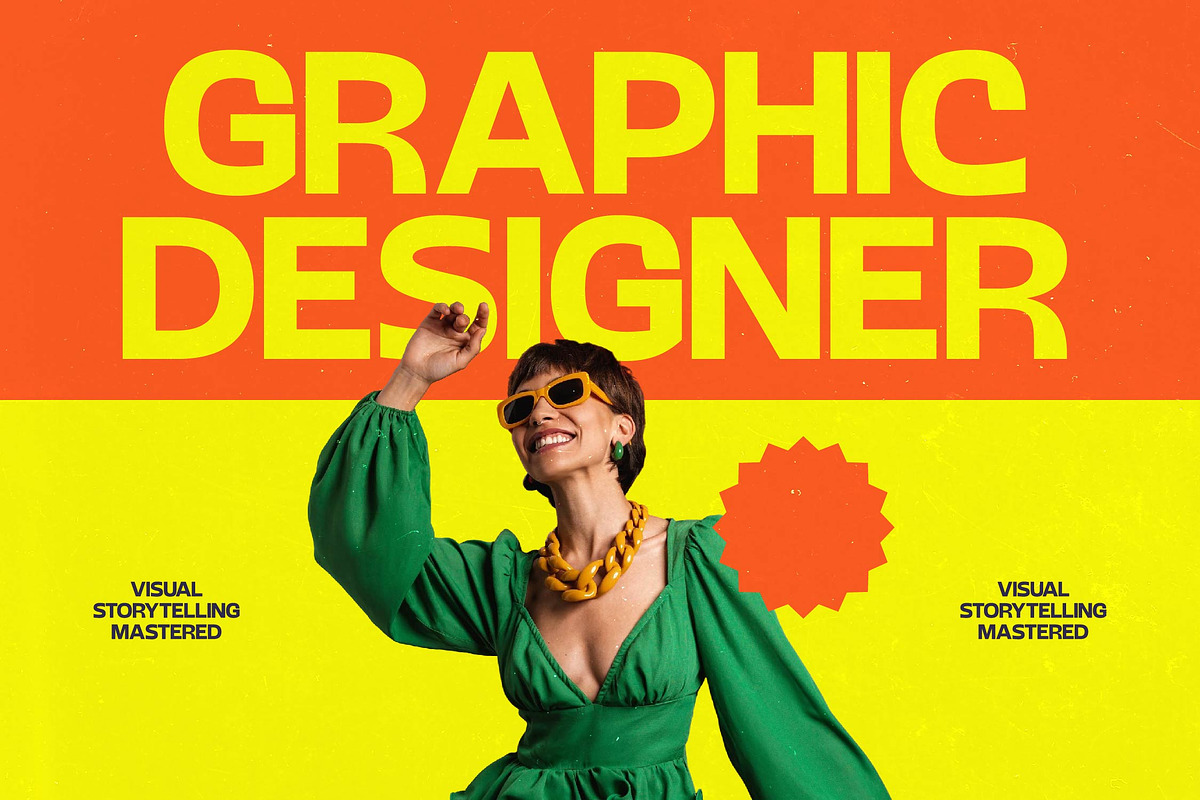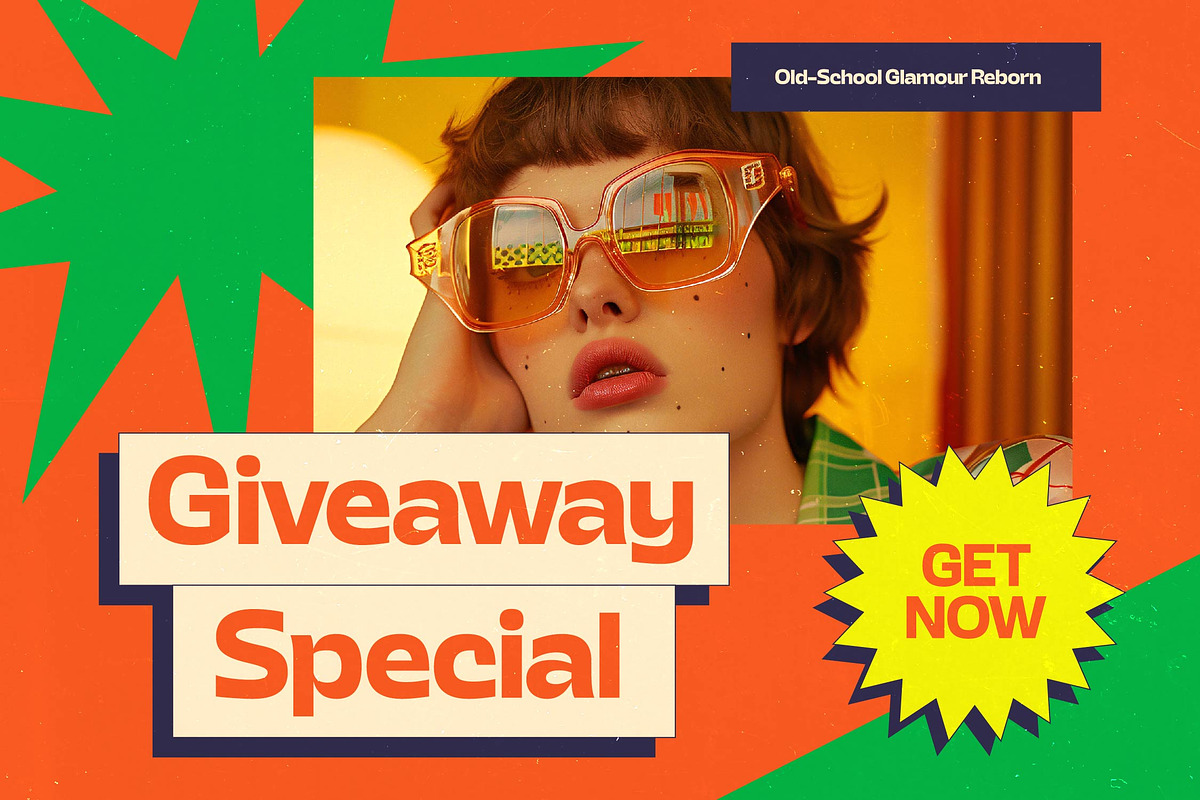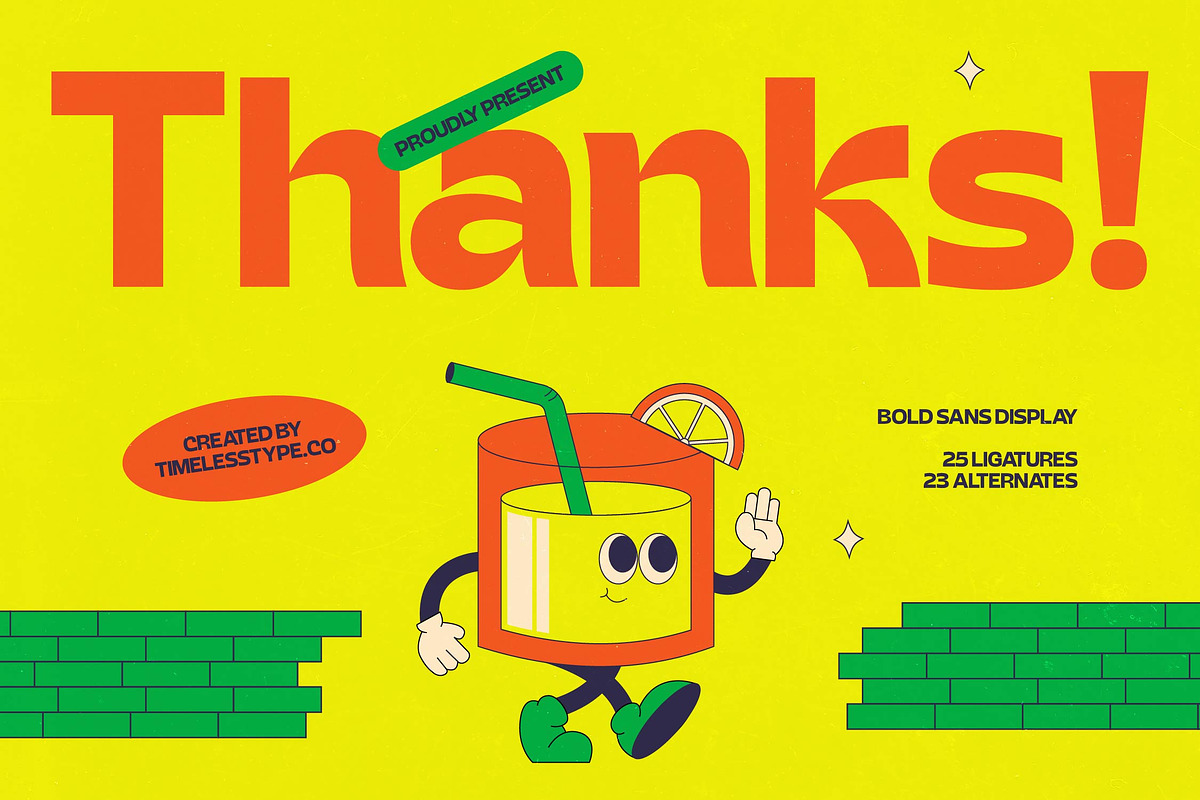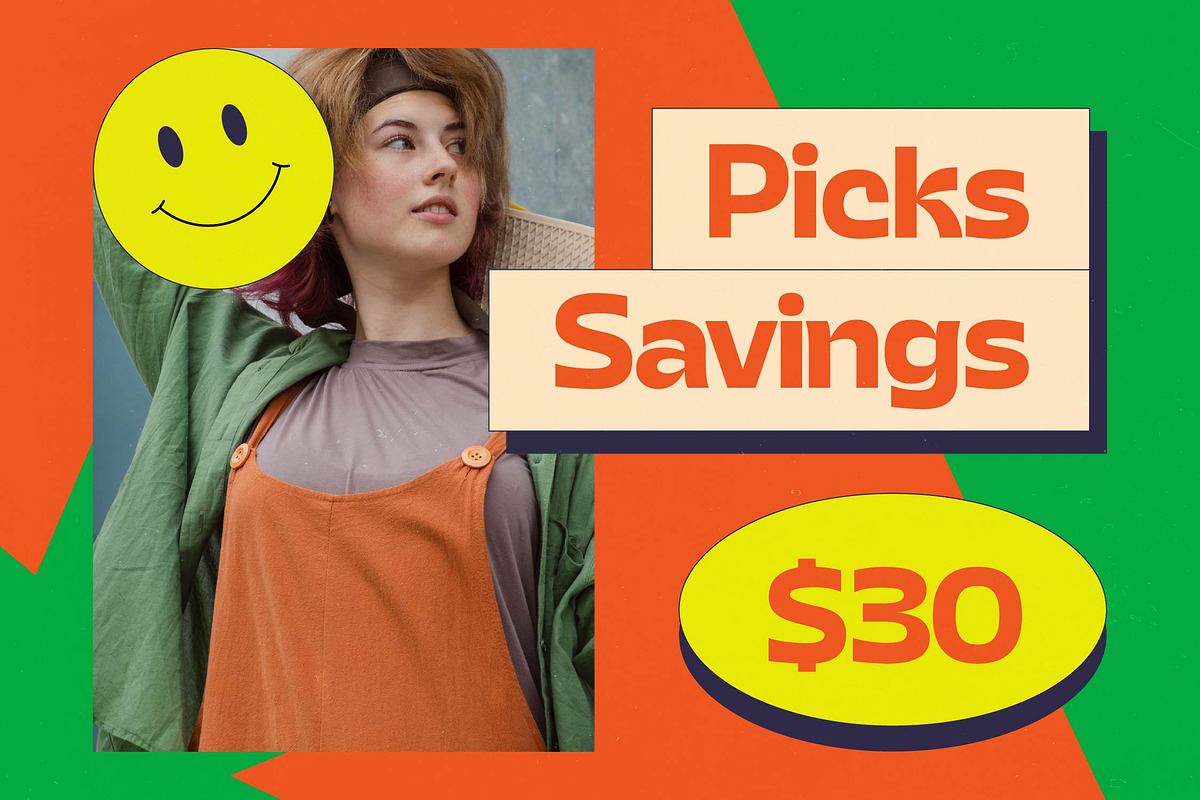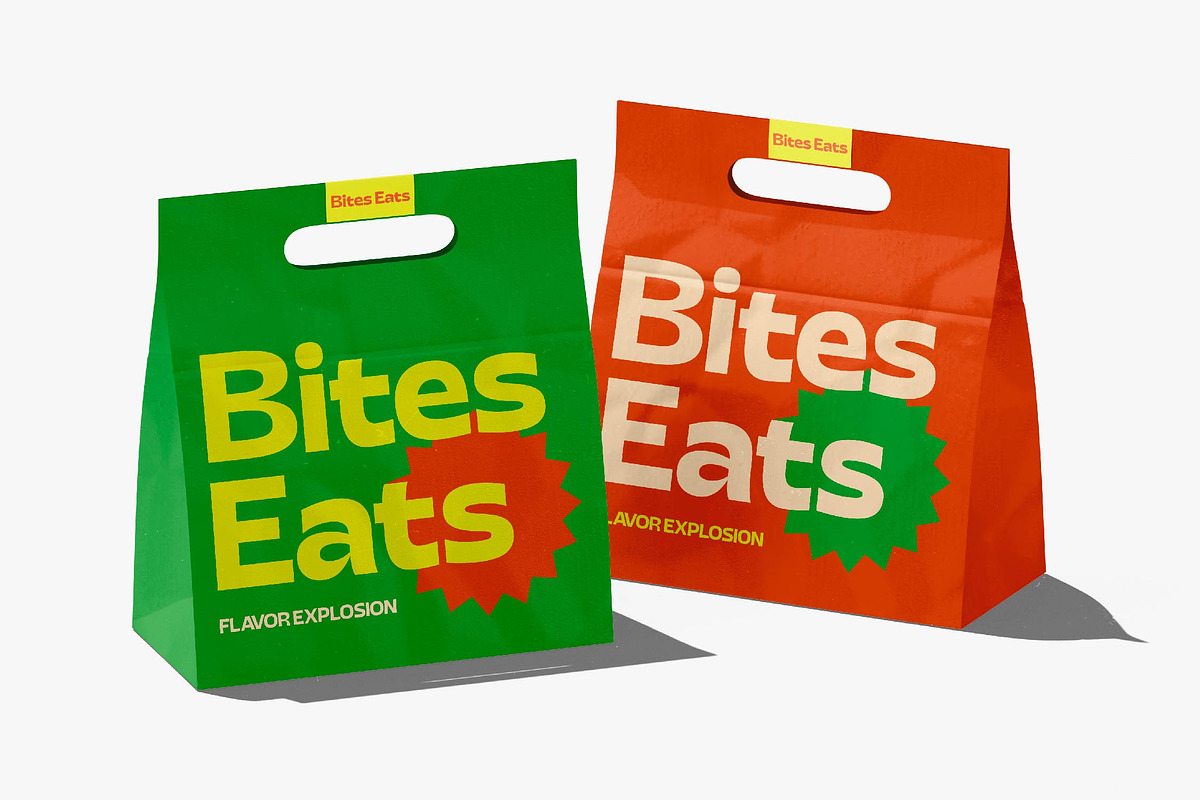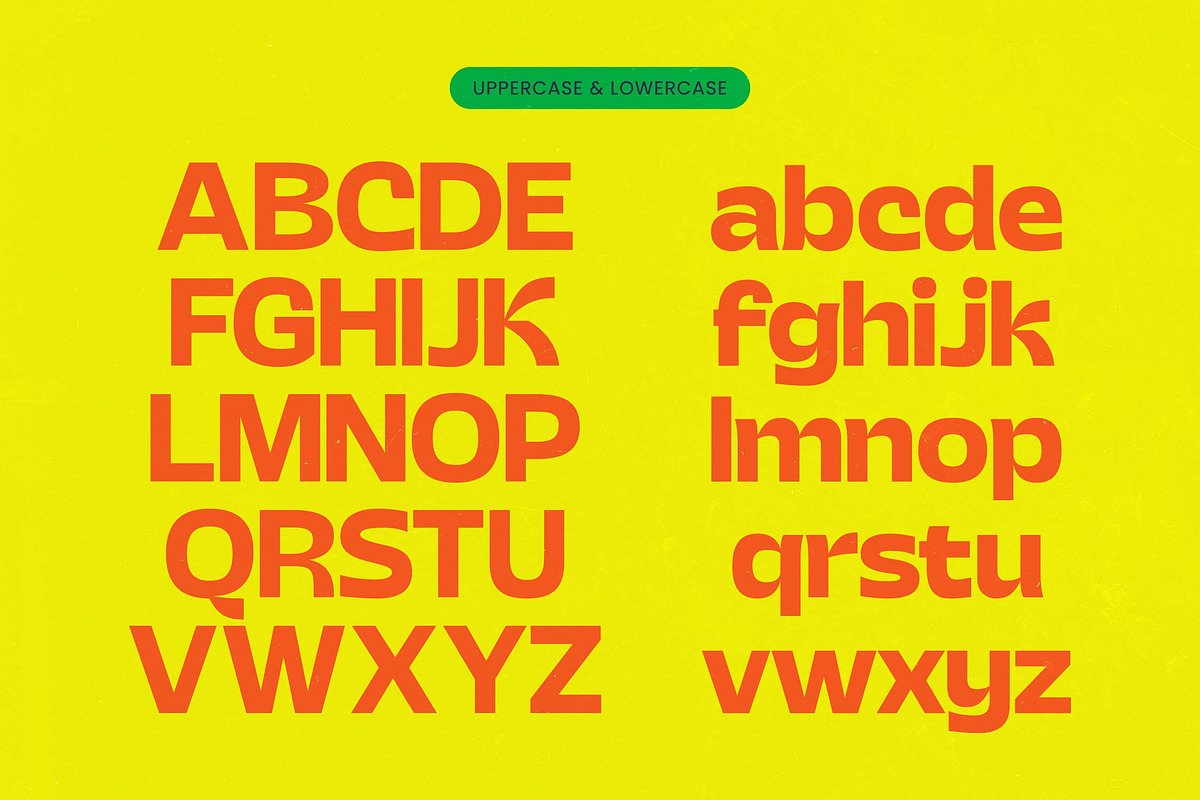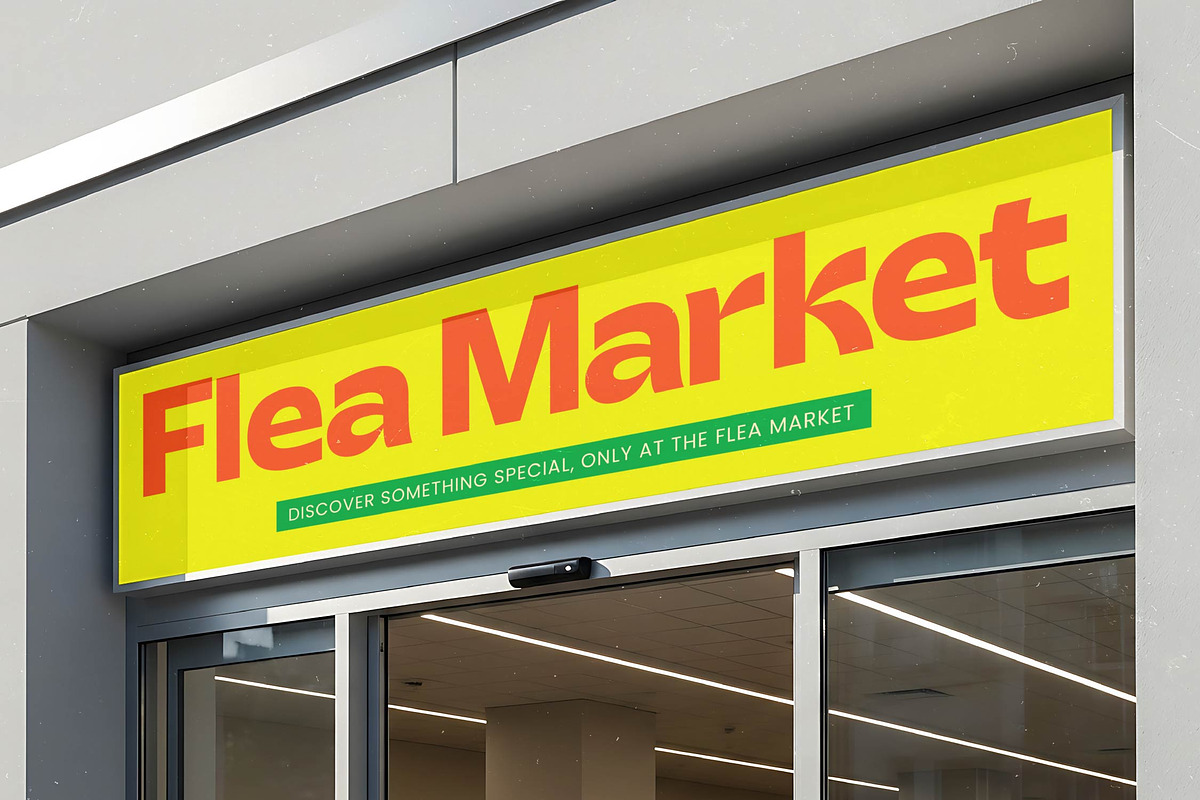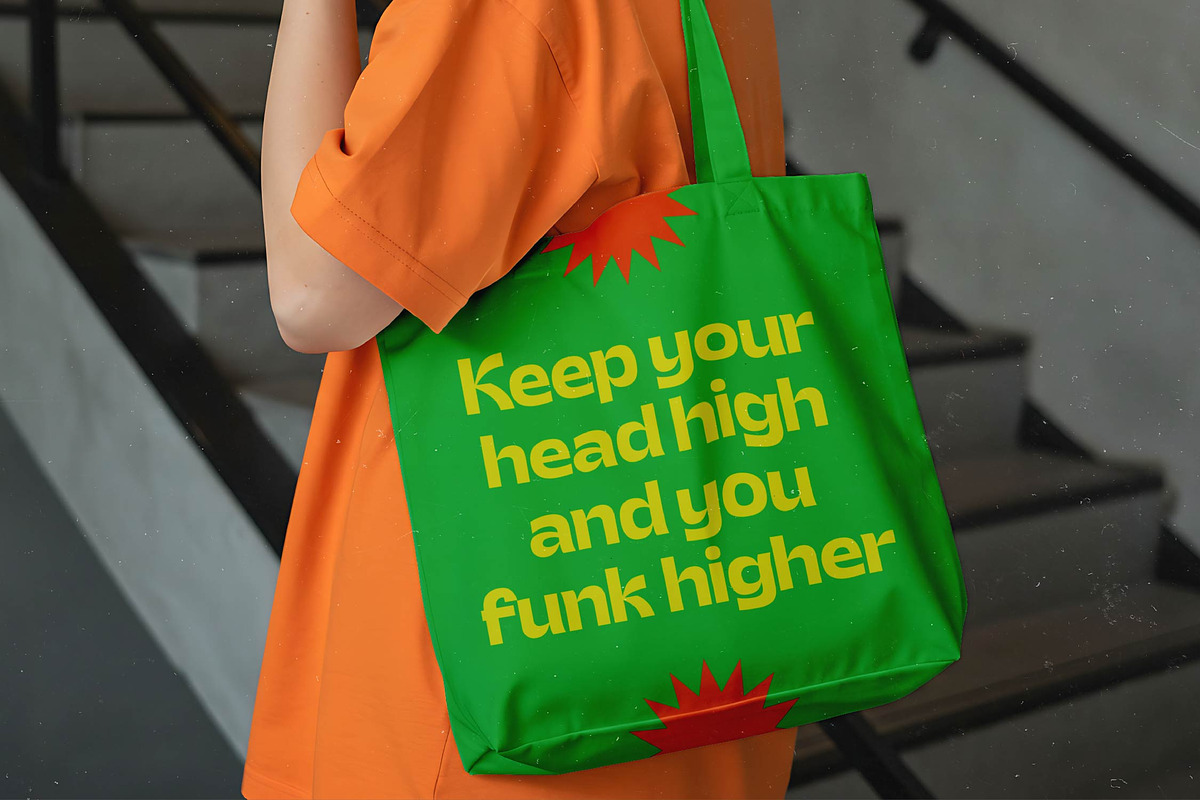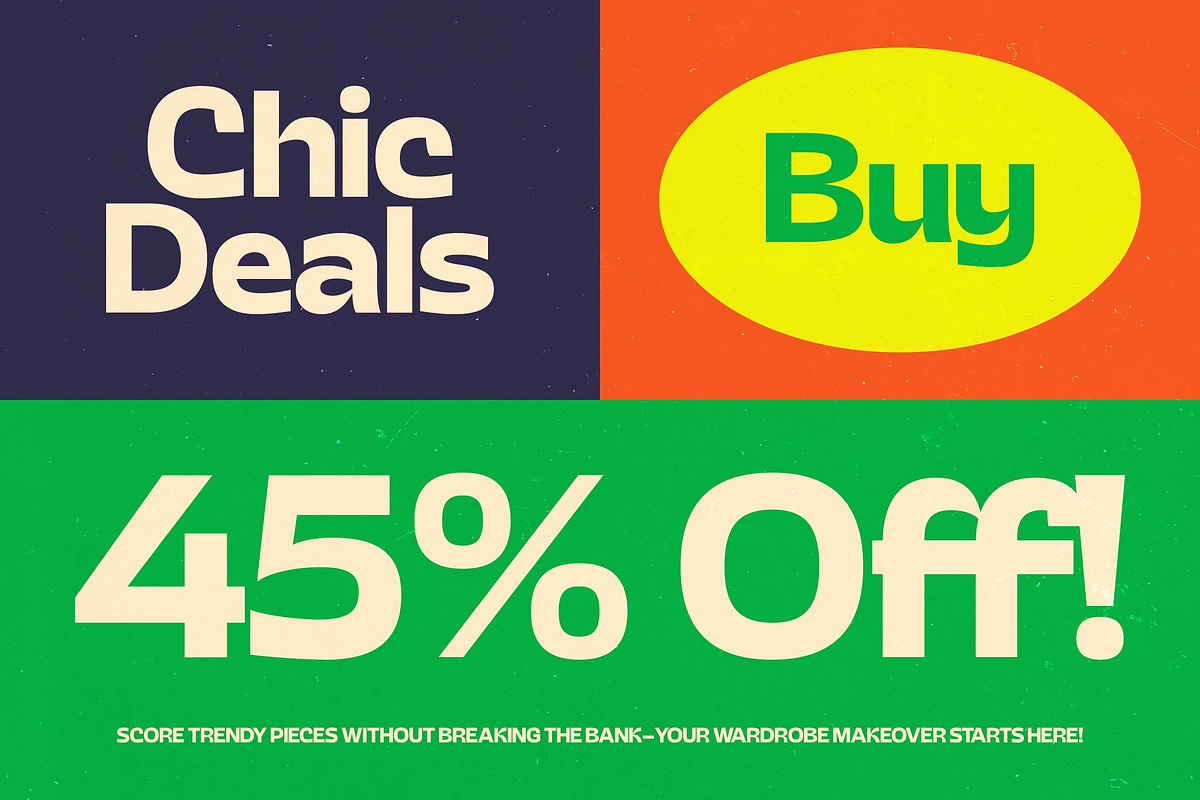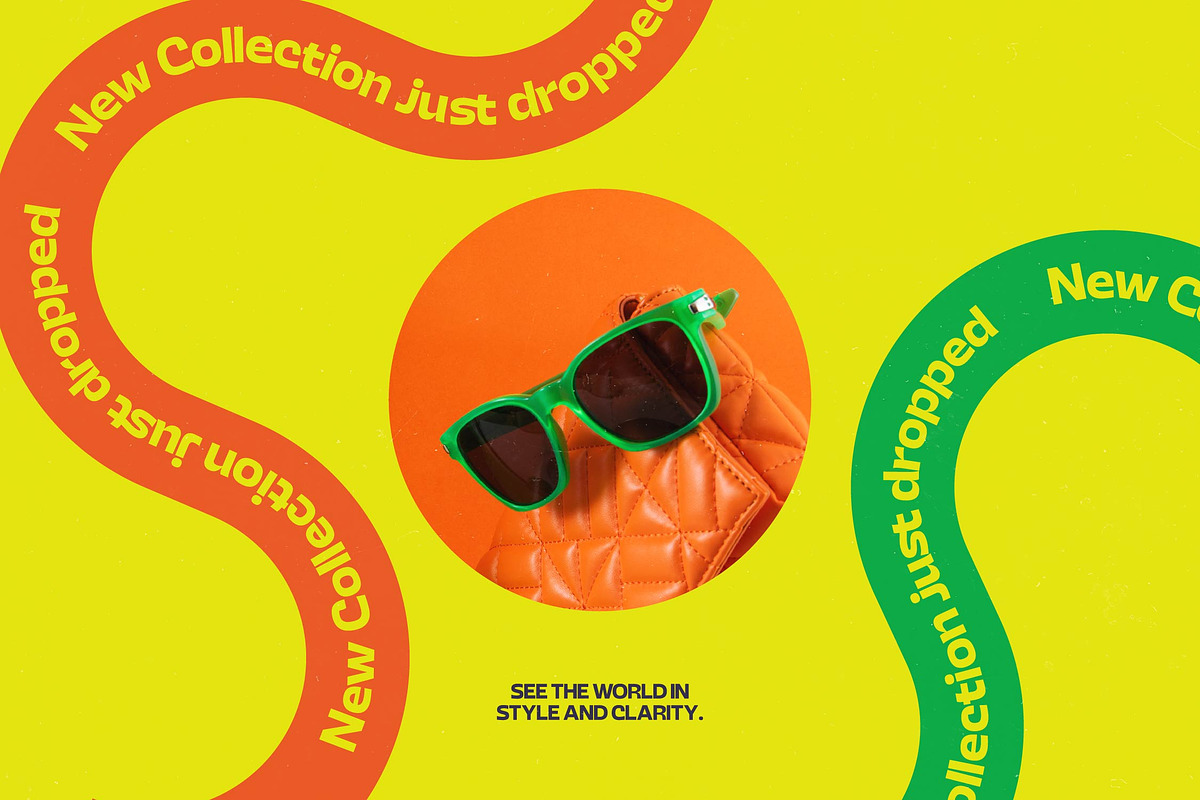
Splasyi Bold Sans Display Font
Splasyi - Bold Sans Display Font , Splasyi arrives as a vibrant burst of creative energy, redefining how bold type interacts with contemporary design. It is more than just a typeface; it is a visual statement that balances playful geometry with high-impact visibility.
Taking cues from the zesty spirit of 1970s pop art and the fluid motion of modern street culture, the design carries a sense of joyful nostalgia. Every curve is meticulously crafted to evoke the freshness of summer and the bold confidence of retro-inspired graphics.
This font delivers a massive branding impact, serving as a unique editorial font for those who want to deviate from the standard modern serif display. It offers the sophistication of luxury typography through its clean lines, standing toe-to-toe with any high-contrast serif in terms of sheer visual presence and elegance.
Perfectly positioned within the current modern serif trend for expressive letterforms, this typeface is a leader among editorial display fonts. It satisfies the growing demand for character-driven typography that feels human, approachable, and undeniably distinct in a sea of sterile designs.
Its robust nature makes it ideal for iconic logo design and comprehensive branding identity systems that need to pop. Whether you are working on a high-fashion editorial, a gourmet food packaging suite, a whimsical wedding brand, or a luxury fashion label, this font provides the necessary weight and charm.
The technical set is comprehensive, featuring a rich array of ligatures and alternates to give your text a custom-lettered look. You can create fluid motions without needing traditional swashes, and the full multilingual support alongside international characters ensures your message resonates across any border.
Numerals
Punctuations (OpenType Standard)
Accents (Multilingual Characters)
Ligatures and Alternative Style Stylistic Set